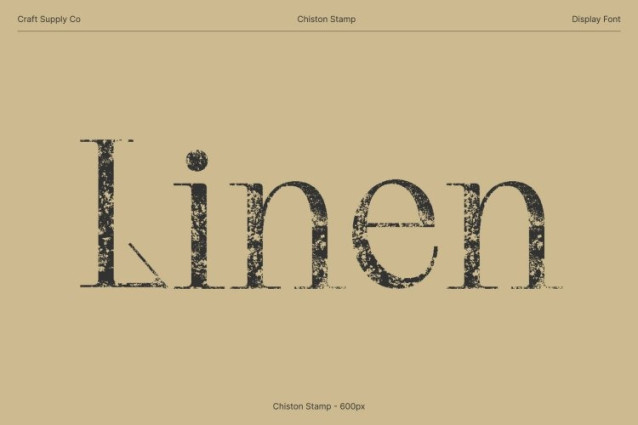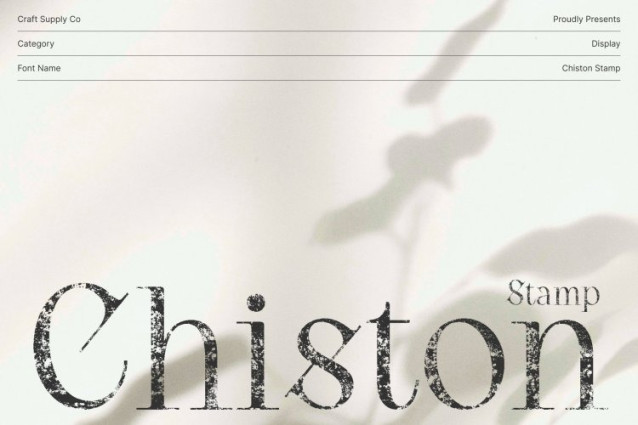
Chiston Stamp Font
Chiston Stamp Font This is a luxury serif font designed to combine artistic expression with high-end sophistication. Its carefully crafted letterforms and elegant proportions create a refined visual presence, making it perfect for designers who want to convey creativity, prestige, and timeless style in their projects.
Unique Ligatures for Personality and Flow
The font features distinctive ligatures and aesthetic details that add personality and smooth flow to every word. These carefully designed connections enhance readability while giving a high-end, expressive character, making it ideal for display purposes such as logos, editorial layouts, posters, and premium branding.
Stamped Texture for Vintage Depth
Enhanced with a stamp effect, this font gains a tactile, handcrafted feel that introduces vintage warmth and subtle imperfections. The texture complements its elegant serif design, creating a harmonious balance between luxury aesthetics and nostalgic charm. This combination ensures each design feels both sophisticated and unique.
Perfect for Logos, Posters, and High-End Editorials
This font is ideal for projects that require creative, high-end typography with character. Whether used for luxury branding, editorial spreads, premium posters, or elegant packaging, its combination of aesthetic ligatures, refined serif forms, and stamped vintage texture ensures your designs stand out with style, sophistication, and timeless appeal.